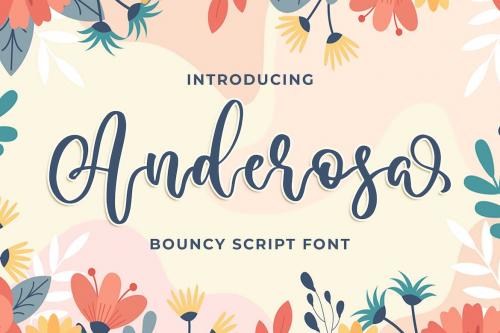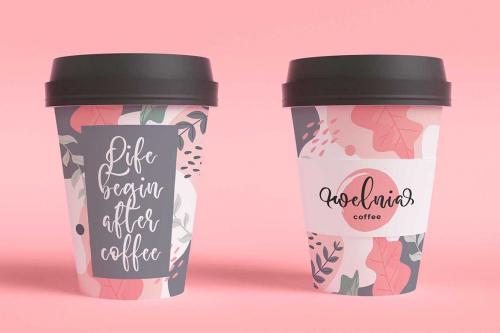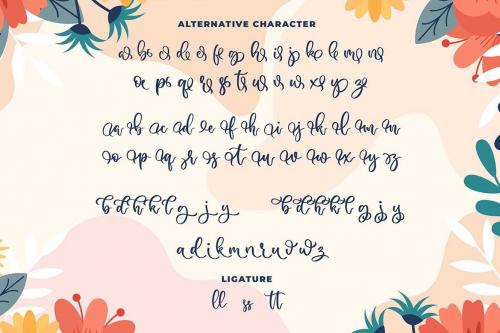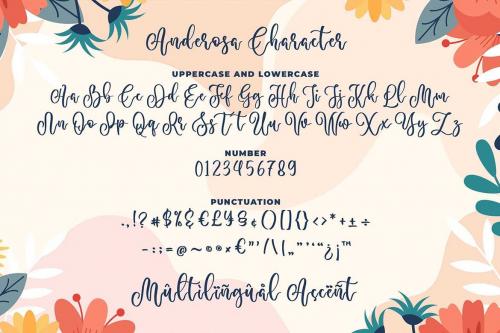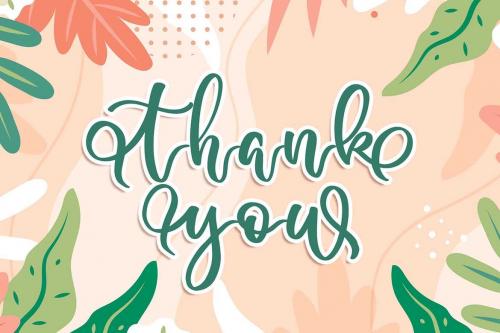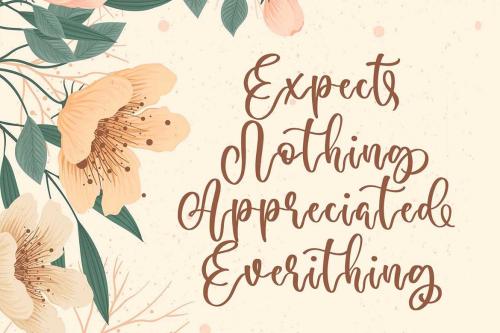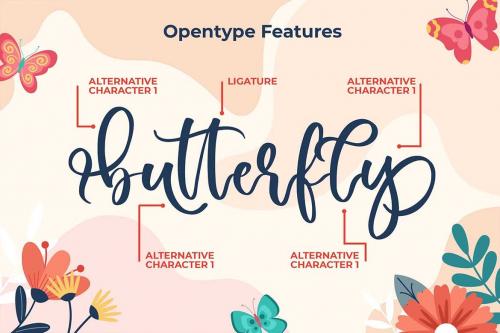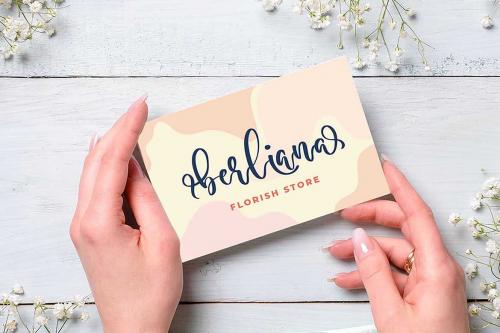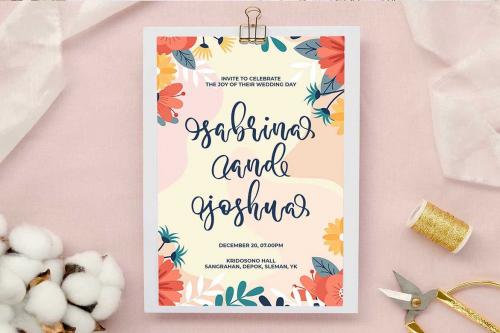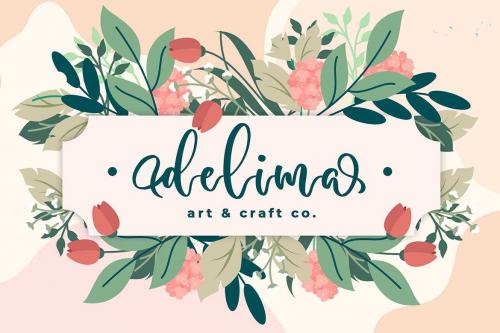
安德罗莎 - 一种弹跳手写字体
Anderosa - a Bouncy Script Font
Introducing of our new product the name is Anderosa a Bouncy Script Font. Anderosa inspired by modern calligraphy style this font is a fun theme very good for display, wedding, valentine theme, logotype and etc
**MULTILINGUAL ACCENT :**
ØÆøæ¢ÐŒœÁĂÂÀÄĄÅÃǼĆČÇĈĊĎÉĔĚÊËĖÈĘĞĜĢĠĤÍĬÎÏİÌĮĨĴĶĹĽĻĿŃŇŅÑÓŎÔÖÒŐǾÕŔŘŖŚŠŞŜȘŤŢÚŬÛÜÙŰŲŮŨẂŴẄẀÝŶŸỲŹŽŻáăâäàąåãǽćčçĉċďéĕěêëėèęğĝģġĥíîïìįĩĵķĺľļŀńʼnňņñóŏôöòőǿõŕřŗśšşŝșťţŭûüűùųůũẃŵẅẁýŷÿỳźžż